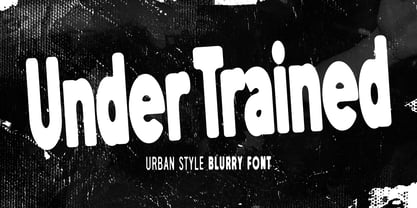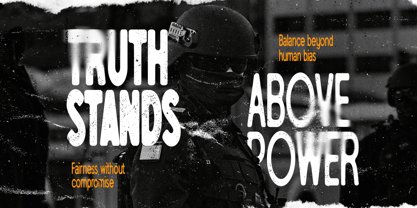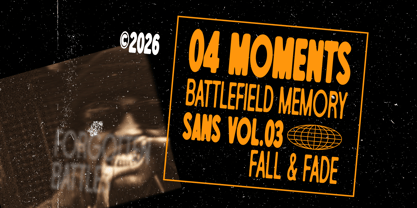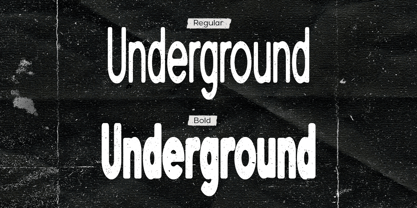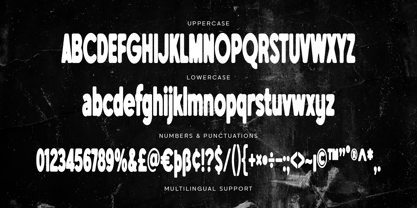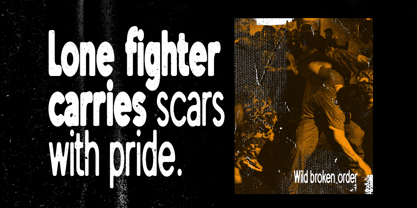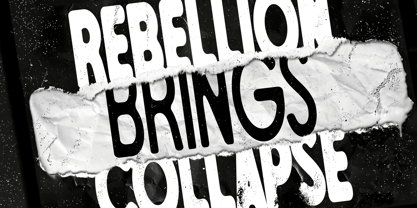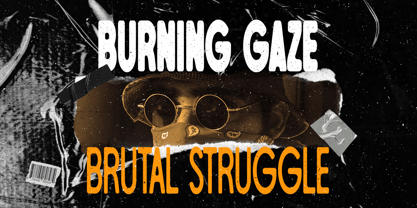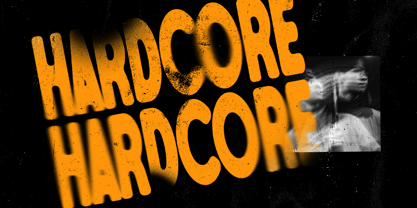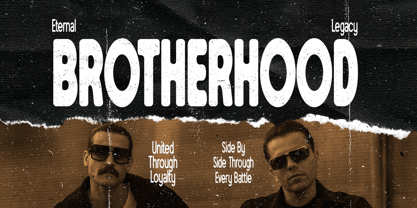
Under Trained
The Under Trained Font Family was designed by Ahmad Ramzi Fahruddin and published by Arterfak Project. Under Trained contains 2 styles and family package options. More about this family
Under Trained is a bold urban display sans serif with a raw blurry aesthetic inspired by underground culture, distorted posters, and chaotic street visuals. The combination of tall condensed shapes and textured blur effects creates a loud, gritty, and modern appearance. Available in Regular and Bold styles, this font is made to stand out in strong visual compositions.
Designed for expressive and experimental projects, Under Trained works perfectly for streetwear branding, fashion posters, editorial layouts, social media graphics, and urban campaign designs. The blurry effect adds a hazy motion feel while still keeping the typography readable and impactful.
Whether you are creating brutalist posters, Y2K-inspired visuals, or distressed modern typography, Under Trained delivers an energetic underground vibe with bold visual character.